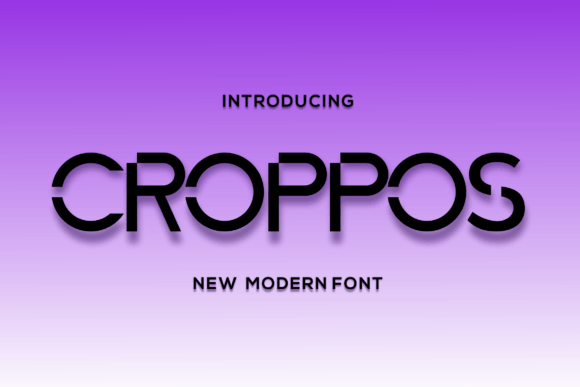
Croppos: A Refined Sans Serif for Editorial Clarity
As someone who designs newsletters, crafts ebook covers, and structures long-form blog features, I pay close attention to how a typeface shapes reader perception before a single word is read. Croppos stands out—not with loud novelty, but with quiet confidence. It’s a modern sans serif font built for editorial precision: clean lines, balanced proportions, and a subtle warmth that avoids sterility. Its letterforms breathe generously, with open counters and consistent stroke contrast—traits that support both screen legibility and crisp print rendering.
What makes Croppos especially valuable in publishing contexts is its dual nature: it functions equally well as a display font and a refined accent typeface. It’s not designed for extended body text—no need to force it into paragraphs—but excels where visual weight, tone, and intention matter most. Think of it as the typographic equivalent of a well-tailored blazer: understated, intentional, and instantly elevating.
Where Croppos Earns Its Place in Your Layouts
In magazine covers and ebook titles, Croppos delivers presence without shouting. Its medium weight holds up beautifully at large sizes, while its light and bold variants offer nuanced hierarchy—ideal for pairing a bold title with a delicate subtitle or author name. For digital magazines, using Croppos across issue banners, section headers, and featured quote graphics creates cohesion without repetition. Its minimalism ensures fast loading and clean rendering across devices, even in responsive email clients.
Blog headers benefit from Croppos’ clarity and rhythm. Unlike overly geometric sans serifs that feel rigid, Croppos carries gentle humanist cues—especially noticeable in lowercase ‘a’, ‘g’, and ‘e’. That nuance translates directly to reader trust: content feels considered, not templated. On mobile, its generous x-height and clear letter differentiation prevent misreading, particularly in newsletter subject lines or social media preview text pulled from your RSS feed.
Branding Consistency Across Content Formats
When you’re building a recognizable content brand—whether it’s a weekly wellness newsletter, a printable coaching workbook, or a seasonal recipe ebook—typographic consistency becomes part of your voice. Croppos supports this through reliable stylistic sets: standard ligatures improve flow in headlines, while alternate characters (like a more calligraphic ‘&’) add quiet personality to logo lockups or cover monograms. Its multilingual support—including Latin Extended-A—means you can confidently use it across bilingual guides or international subscriber lists without falling back on system fonts.
For printable planners or lead magnets, Croppos shines in section dividers, habit trackers, and inspirational headers. Its clean geometry pairs naturally with hand-drawn icons or soft watercolor backgrounds, never competing for attention. And because it exports crisply to PDF, your worksheets retain fidelity whether viewed on a tablet or printed at home—no pixelation, no unintended kerning shifts.
Smart Pairings for Editorial Balance
Croppos thrives when paired intentionally. As a display sans serif, it complements readable serif fonts like Adobe Garamond, Charter, or IBM Plex Serif for body copy—creating contrast that guides the eye without jarring transitions. In digital magazines or long-form blogs, this pairing reinforces hierarchy: Croppos for headings and pull quotes, the serif for narrative depth. For captions, navigation menus, or footnote labels, a neutral sans like Inter or Manrope keeps the interface clean and functional.
Avoid pairing Croppos with other high-contrast display fonts or decorative script fonts unless you’re aiming for deliberate tension—say, a wedding guide where Croppos handles formal headings and a delicate script accents invitations. In most editorial work, restraint yields stronger results.
Practical Considerations for Real Publishing Workflows
Croppos includes six weights (Thin through Black), true italics, and OpenType features like small caps and discretionary ligatures—tools that matter when refining a premium font for client deliverables or commercial templates. If you're designing a paid newsletter bundle, a branded course workbook, or a digital magazine sold via Gumroad or Substack, ensure your license permits redistribution. Most commercial licenses cover ebook embedding, template resale, and print-on-demand use—but always verify permissions for PDF exports, web font hosting, or white-label client projects.
Readability extends beyond design: Croppos renders consistently across browsers and PDF viewers, with no fallback surprises. Its hinting is optimized for screen use, so newsletter headers remain sharp on iOS Mail and Android Gmail alike. For printables, its vector outlines scale cleanly—no blurry edges when users zoom or resize worksheets.
Real-World Applications You’ll Reach For Often
- Lifestyle blogs: Use Croppos Bold for post titles and Croppos Light for bylines or category tags—creating instant visual rhythm in grid layouts.
- Recipe ebooks: Apply Croppos Medium to dish names and Croppos Italic to origin notes (“Inspired by coastal Liguria”)—adding context without clutter.
Croppos doesn’t try to be everything. It’s not a handwriting font for casual notes, nor a condensed sans for tight captions. Its strength lies in specificity: it’s a modern sans serif font that brings elegance to editorial moments where clarity and character intersect. When your goal is to signal care—not just in what you write, but how it’s seen—Croppos earns its place in your design toolkit.